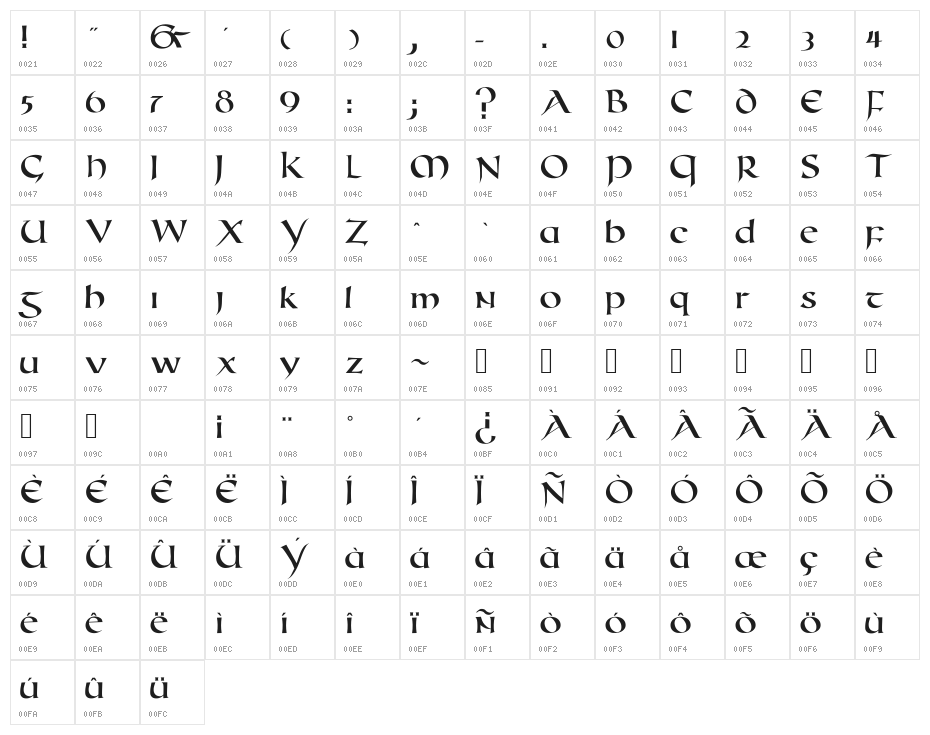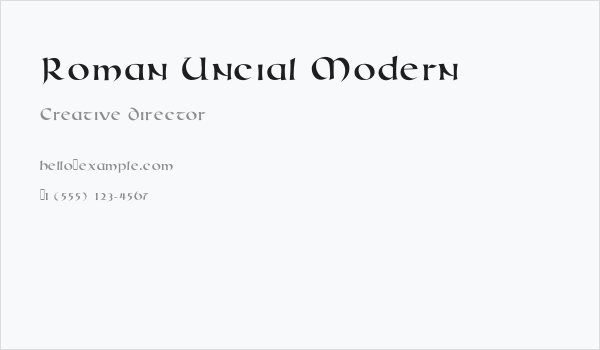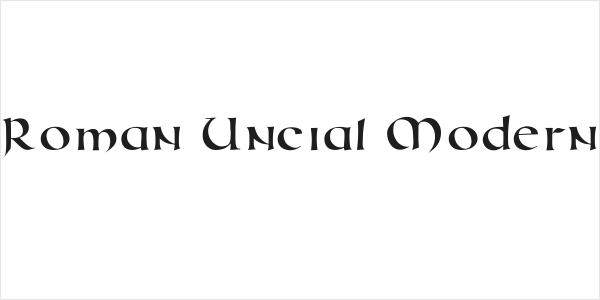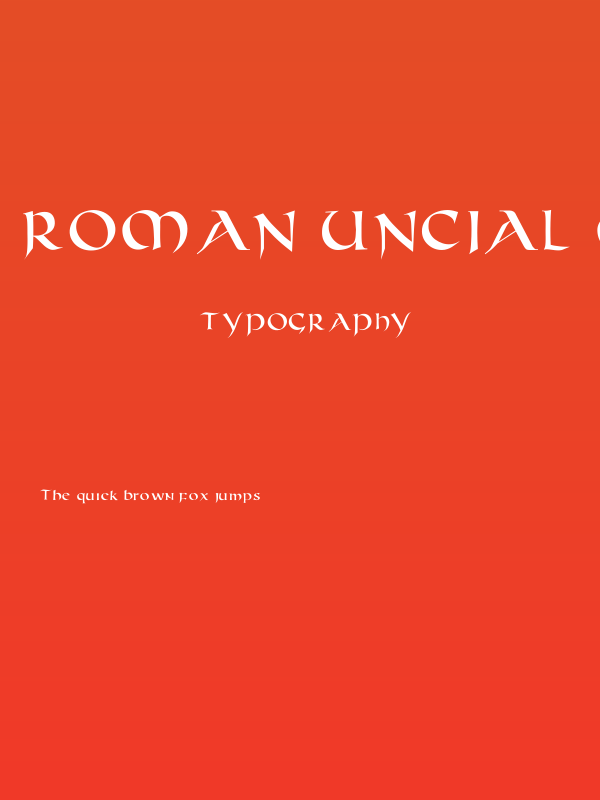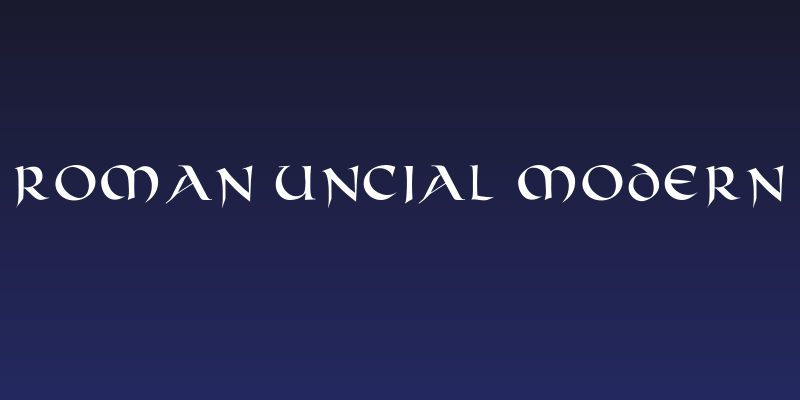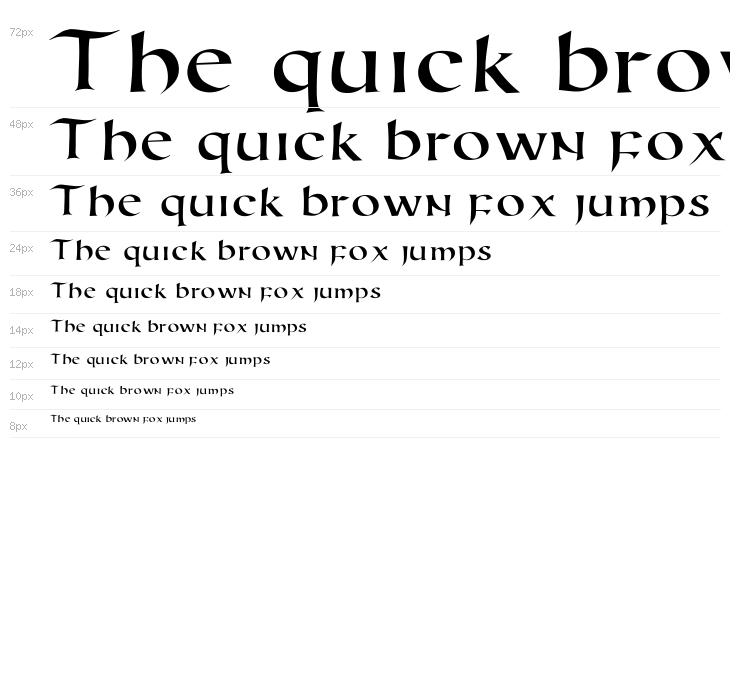
Roman Uncial Modern Font
Roman Uncial Modern Description
This font features a unique blend of traditional Roman and Uncial styles, creating a modern yet historical aesthetic. The uppercase letters are characterized by their bold, sweeping curves and sharp serifs, giving them a dramatic and elegant appearance. The lowercase letters maintain a similar style, with rounded forms and distinctively angled strokes that enhance readability while preserving the font's artistic flair. The numerals are consistent with the overall design, featuring a balance of curves and angles. Special characters are thoughtfully designed to complement the alphabet, maintaining the font's cohesive look. This font's distinctive style makes it suitable for projects that require a touch of historical elegance with a modern twist.
| Proposed Projects | Ideal for book covers, historical fiction, branding, and decorative headings. |